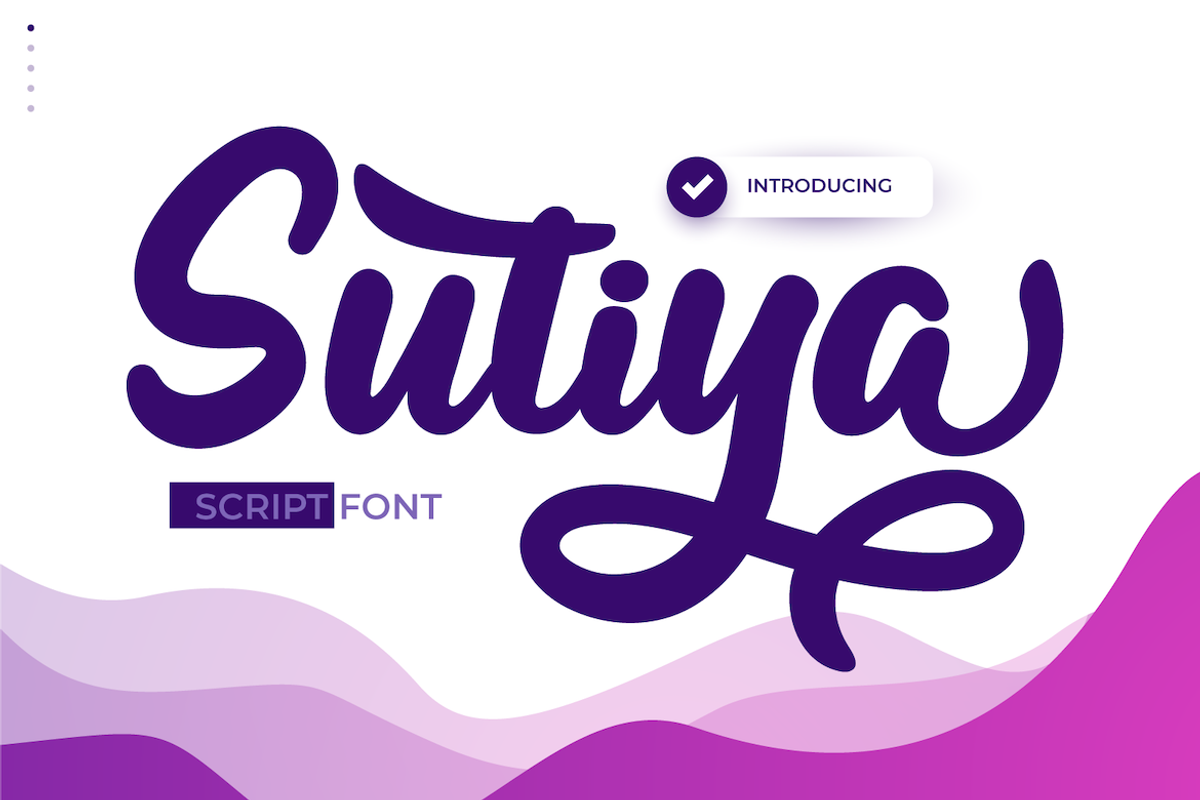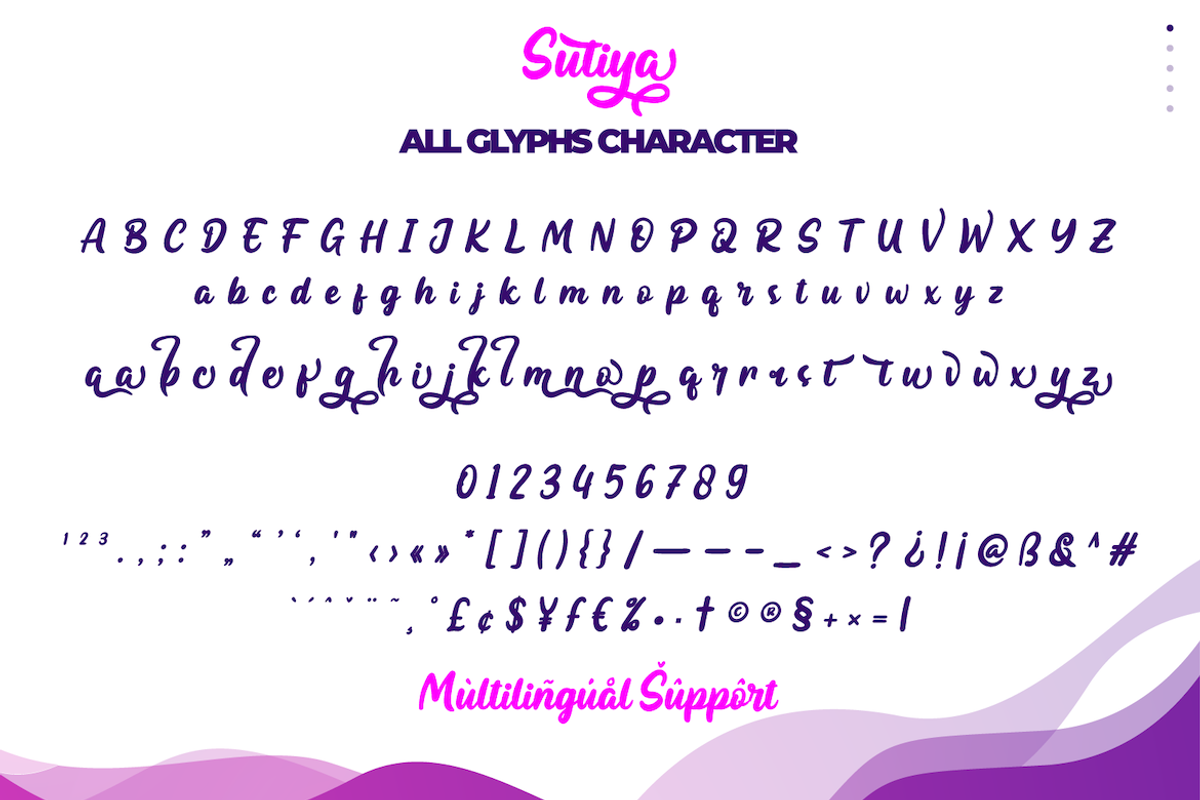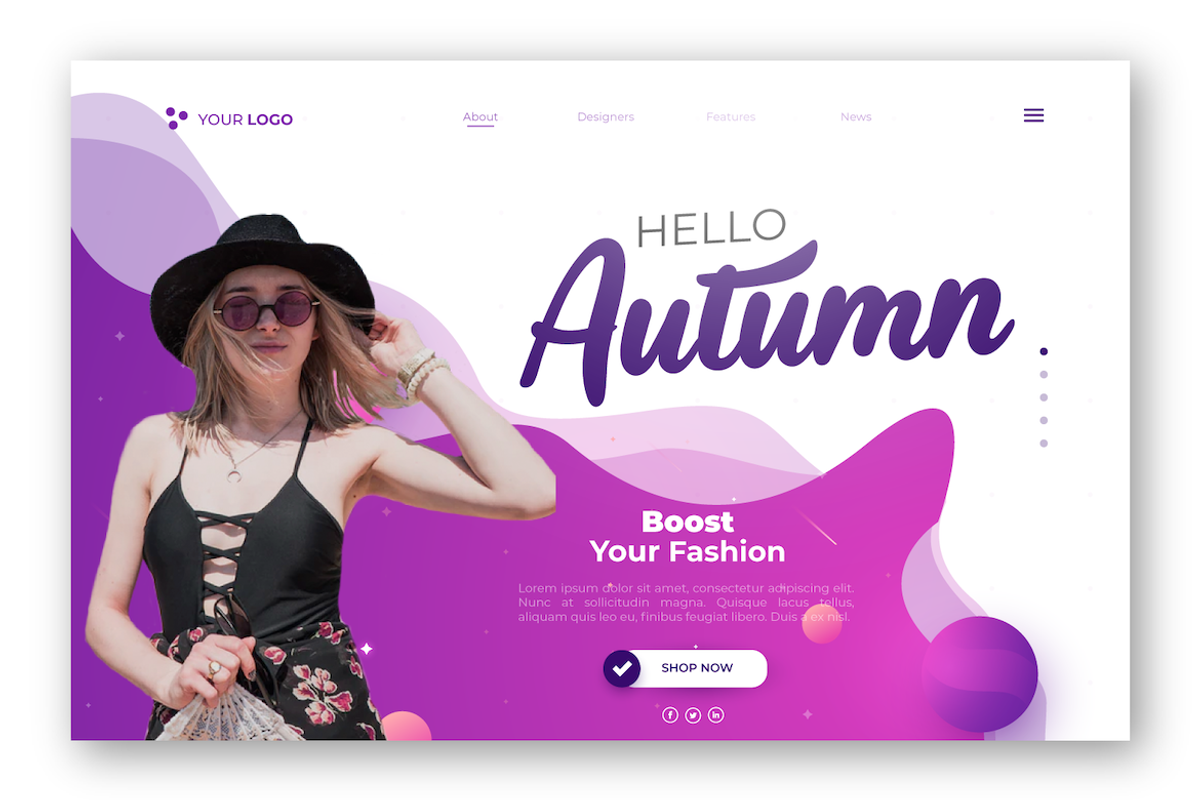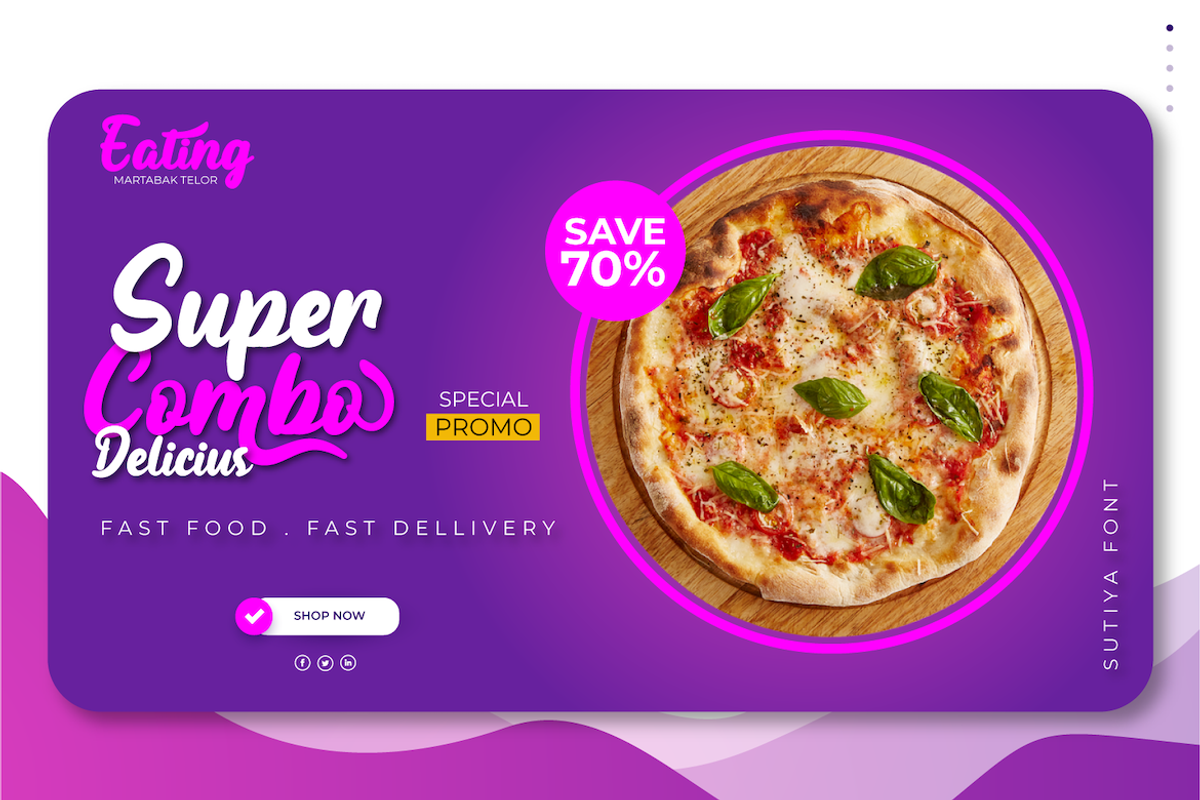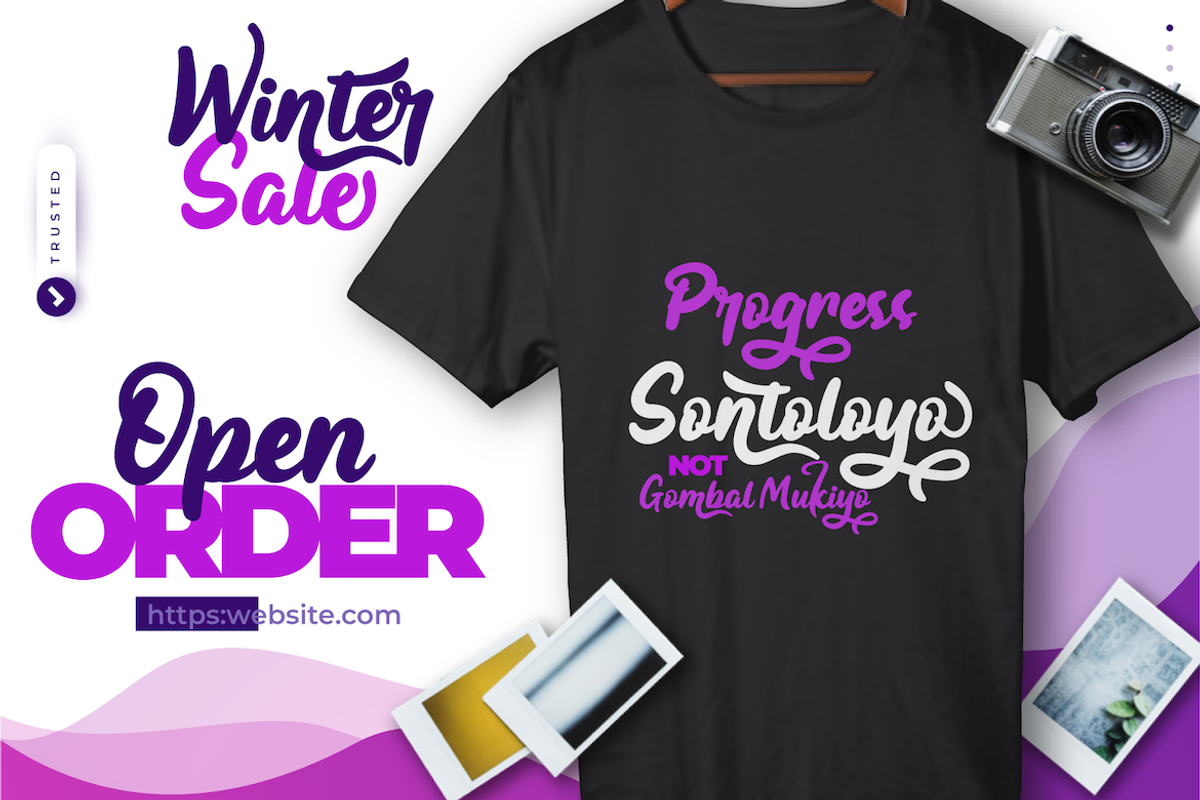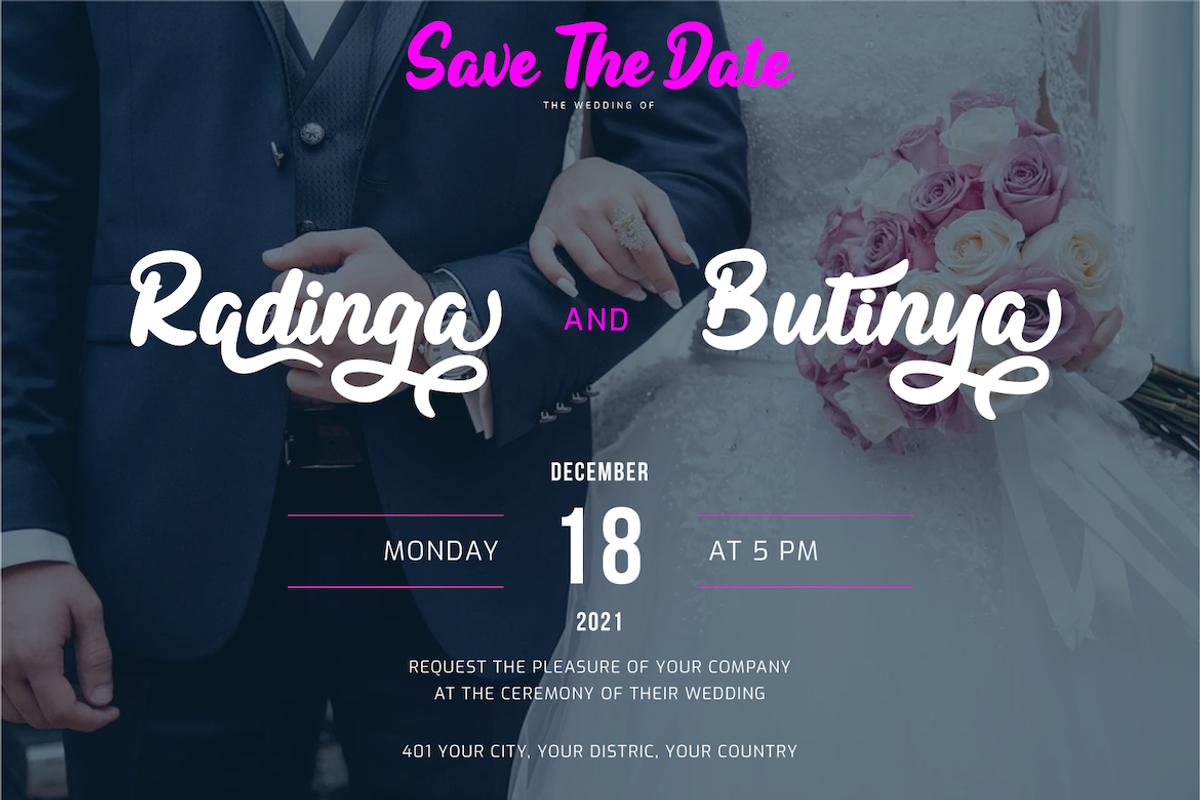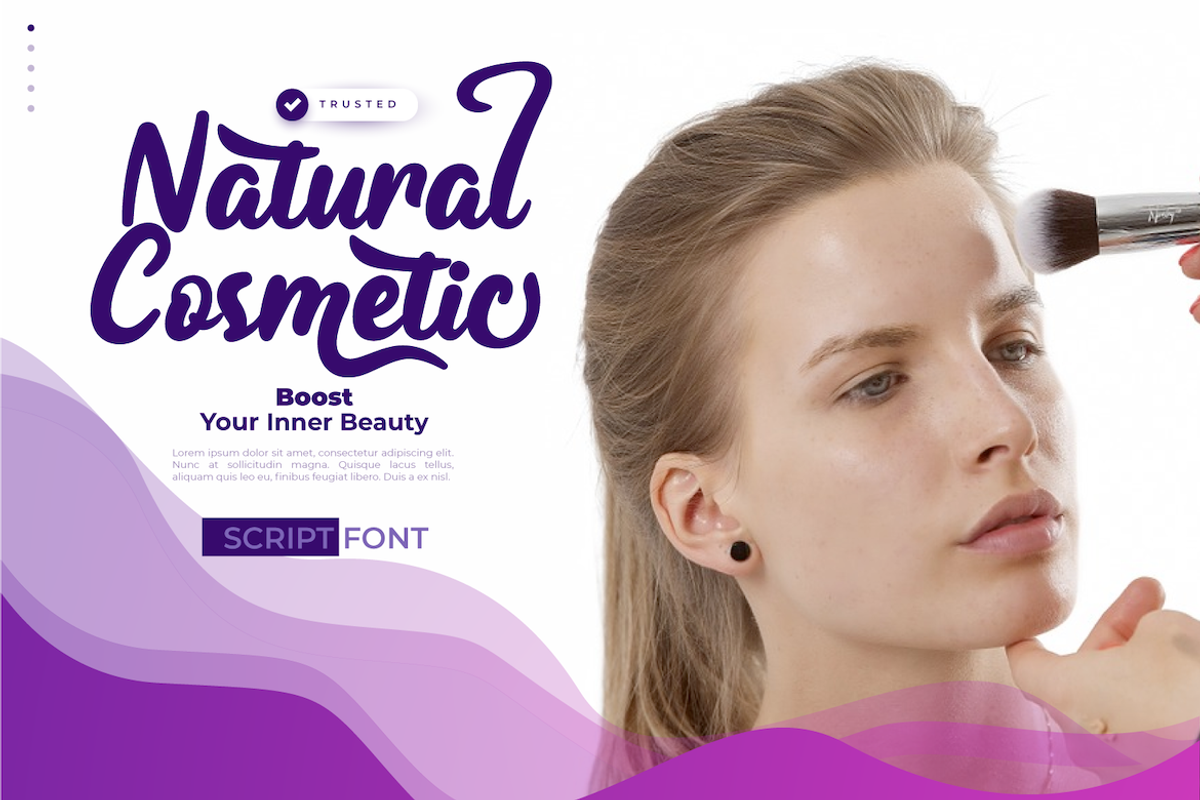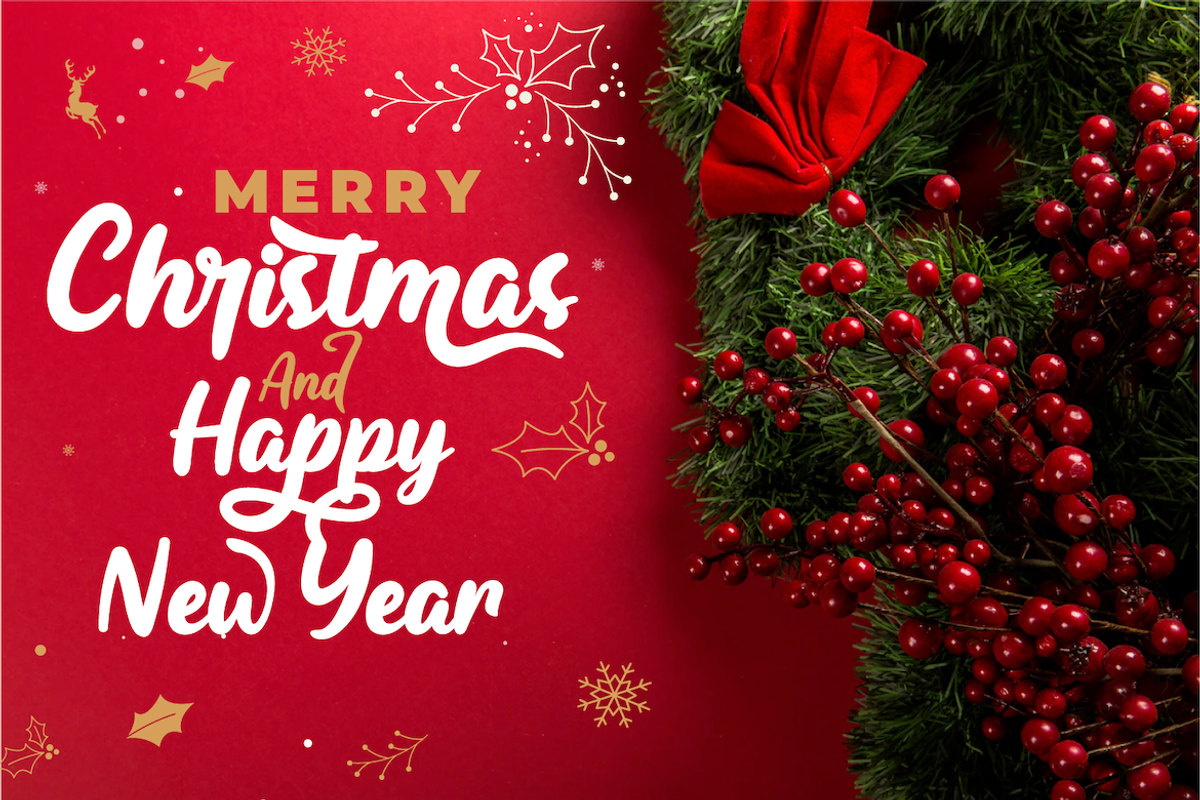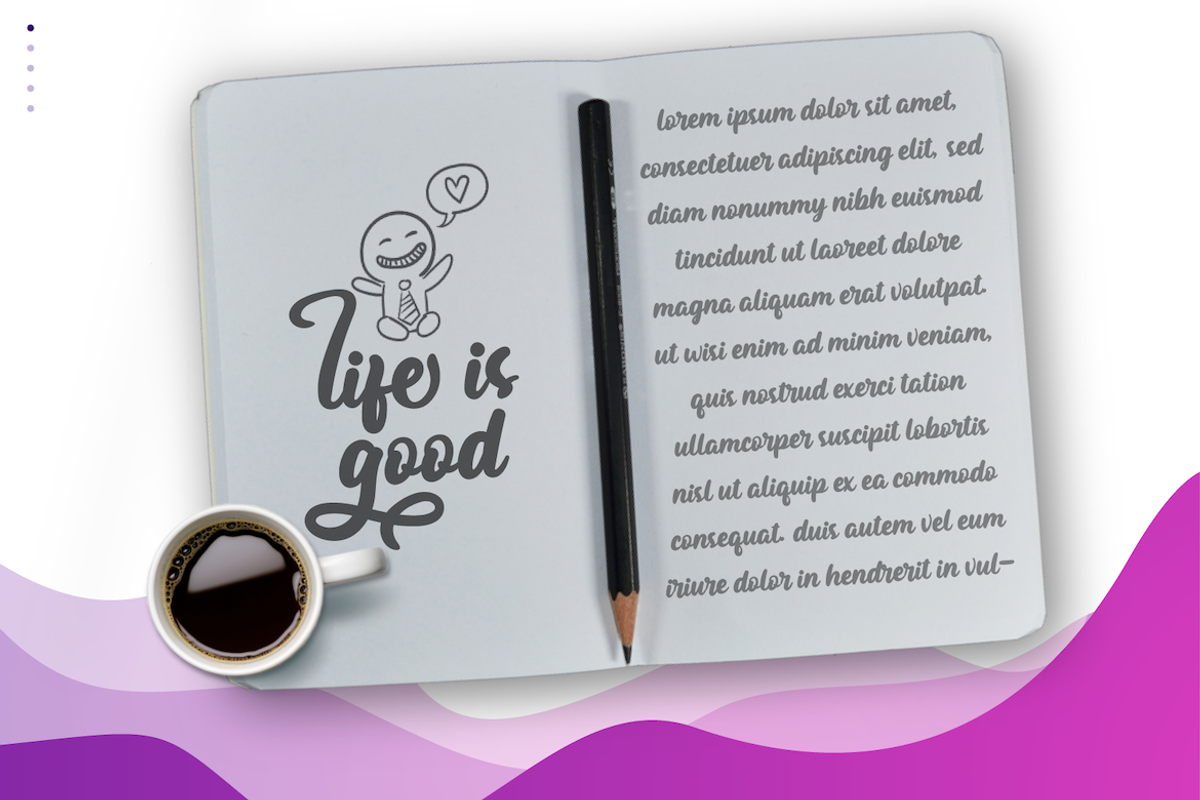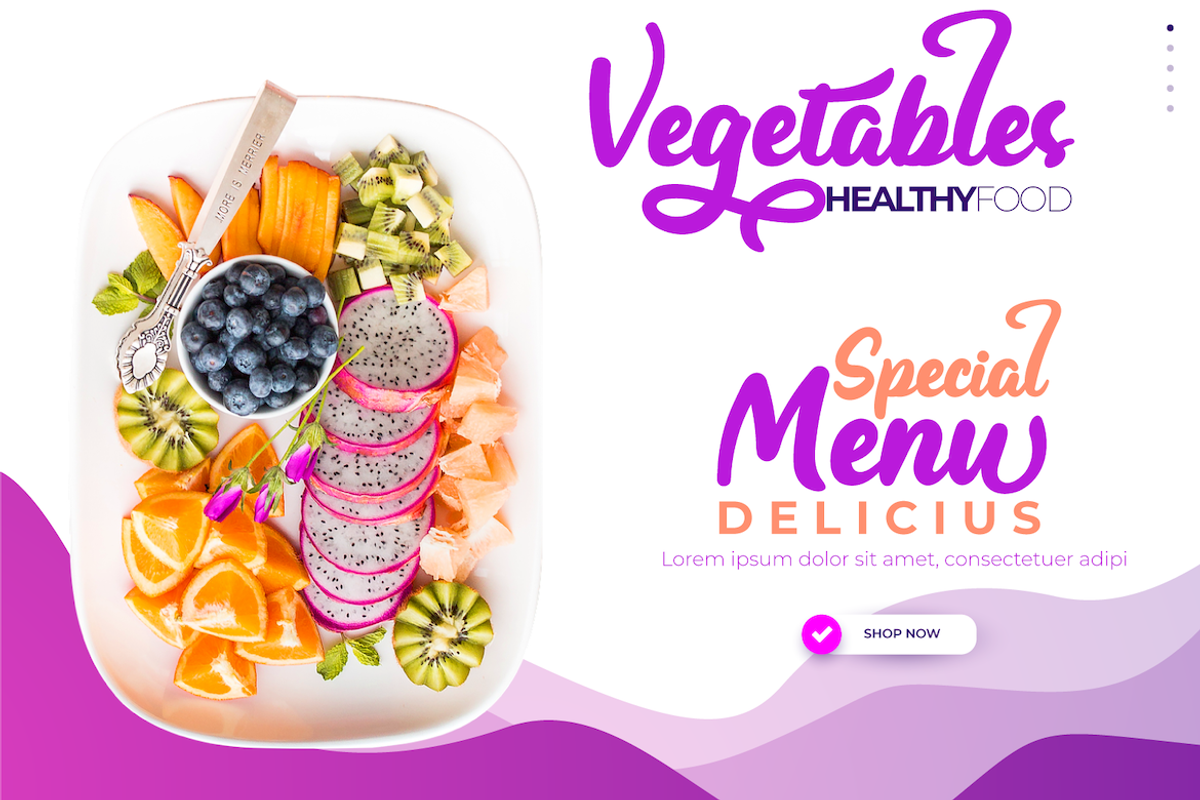
Sutiya
Introducing our newest font named Sutiya
This font is surnamed calligraphy script with cute and beautiful nuances, designed with beautiful curves for each letter, with OpenType support you can change each character easily like magic. It also has a charming modern character, perfect for Halloween and Christmas nuances.
Of course, the beautiful and beautiful letterforms make this font look charming for you to use as a title, logo, or anything else in your every design project.
This charming font also offers the beauty of abstract typography harmony for a wide variety of design projects, including digital natural handwriting for designs, quote designs, for social media business designs, advertisements, trademarks, food and beverage promotion banners, text, posters, a signature, and all designs require handwriting or whatever design you want.